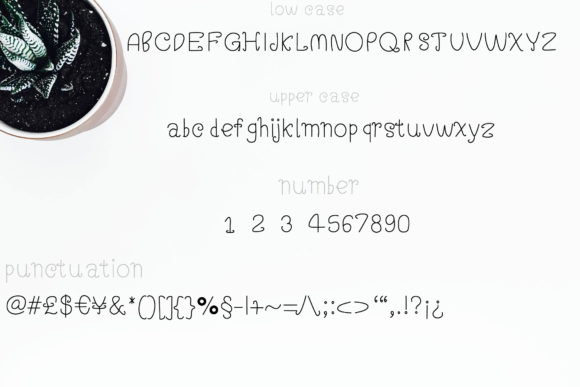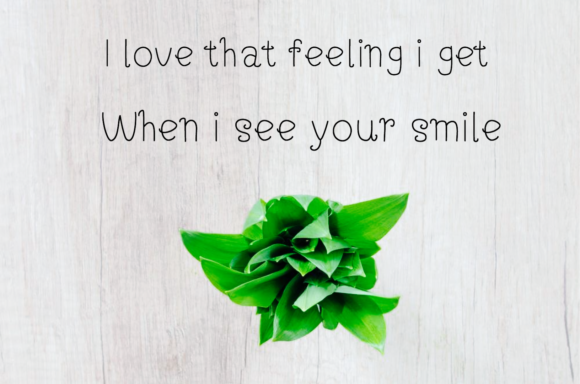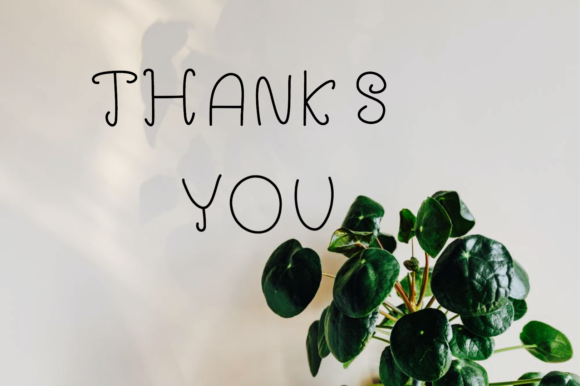
About Seeds Font
Seeds is a delightful and charming handwritten font that brings a touch of joy and whimsy to your designs. Here are some key features that make Seeds stand out:
Sweet and Quirky: Seeds’ playful and endearing style instantly adds a sense of sweetness and fun to any design. Its unique letterforms with playful variations create a friendly and approachable feel, making it perfect for projects that aim to evoke a cheerful and lighthearted atmosphere.
Versatility: Seeds is incredibly versatile and can be used in a wide range of design applications. Whether you’re creating greeting cards, social media graphics, branding materials, or anything in between, Seeds’ quirky charm adapts well to various contexts.
Handcrafted Appeal: Seeds retains an authentic handcrafted feel, giving your designs a personal touch that resonates with viewers. Its irregular shapes and whimsical details mimic the imperfections of real handwriting, adding a sense of warmth and character to your creations.
Joyful and Uplifting: The joyful and uplifting nature of Seeds makes it a perfect choice for designs that seek to spread happiness and positivity. Its playful style instantly brightens up any design and brings a smile to the viewer’s face.
Attention-Grabbing: Despite its playful and whimsical nature, Seeds is still attention-grabbing and can be used effectively in headlines or titles. Its unique style makes your text stand out, drawing the viewer’s eye and capturing their attention.
Emphasizing Creativity: Seeds’ quirky and creative flair is ideal for projects that celebrate imagination and originality. It complements designs that embrace the unconventional and want to stand out from the crowd.
Imbuing a Playful Atmosphere: Incorporating Seeds into your design projects will infuse them with a sense of playfulness and delight. Whether you’re working on designs for children, crafts, or anything that needs a touch of whimsy, Seeds is a font that will make your creations truly special and captivating.
With its joyful and quirky personality, Seeds is a font that adds a delightful touch to any design. It invites creativity, spreads happiness, and creates a positive and engaging atmosphere for your audience. So, let your ideas flourish and bloom with the playful charm of Seeds!